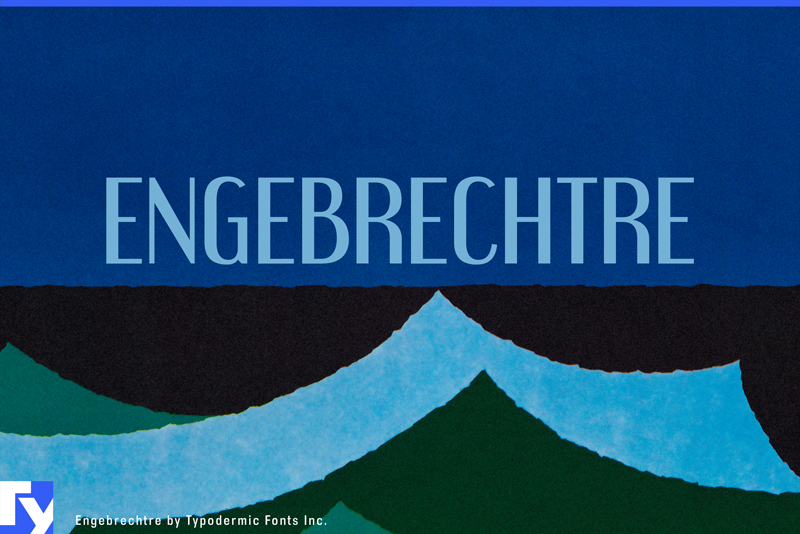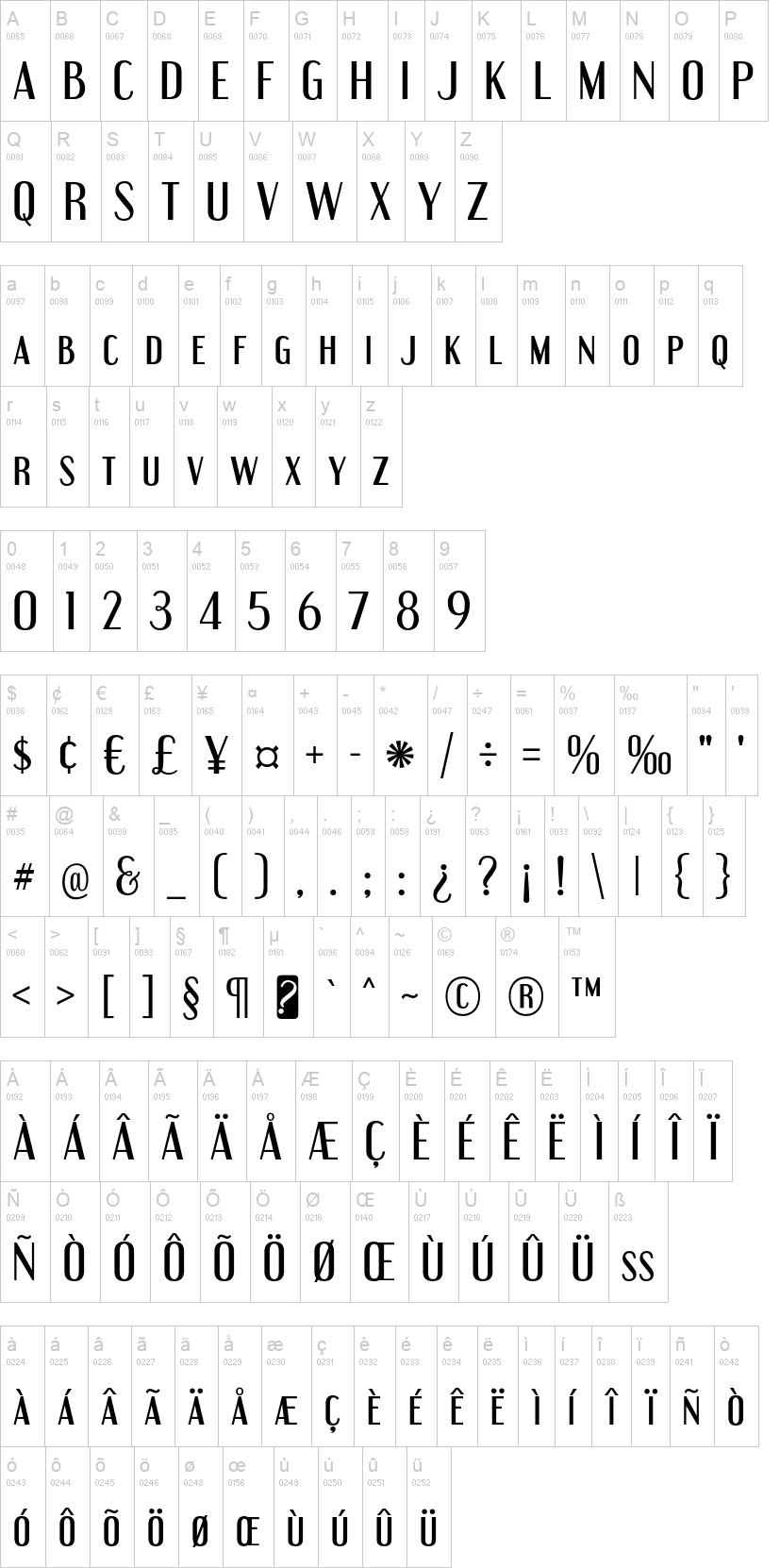
Engebrechtre Rg It.otfEngebrechtre Bd.otfEngebrechtre Bd It.otfEngebrechtre Ex.otfEngebrechtre Ex It.otfEngebrechtre Ex Bd.otfEngebrechtre Ex Bd It.otfNote of the authorEngebrechtre is a compact Art Deco sans-serif display typeface. Its flat sided shapes and 1920s letterforms give it a semi-industrial vibe, similar to vernacular signage of the time. Engebrechtre has two weights, two widths, and italics. Most Latin-based European writing systems are supported, including the following languages. Afaan Oromo, Afar, Afrikaans, Albanian, Alsatian, Aromanian, Aymara, Bashkir (Latin), Basque, Belarusian (Latin), Bemba, Bikol, Bosnian, Breton, Cape Verdean, Creole, Catalan, Cebuano, Chamorro, Chavacano, Chichewa, Crimean Tatar (Latin), Croatian, Czech, Danish, Dawan, Dholuo, Dutch, English, Estonian, Faroese, Fijian, Filipino, Finnish, French, Frisian, Friulian, Gagauz (Latin), Galician, Ganda, Genoese, German, Greenlandic, Guadeloupean Creole, Haitian Creole, Hawaiian, Hiligaynon, Hungarian, Icelandic, Ilocano, Indonesian, Irish, Italian, Jamaican, Kaqchikel, Karakalpak (Latin), Kashubian, Kikongo, Kinyarwanda, Kirundi, Kurdish (Latin), Latvian, Lithuanian, Lombard, Low Saxon, Luxembourgish, Maasai, Makhuwa, Malay, Maltese, Māori, Moldovan, Montenegrin, Ndebele, Neapolitan, Norwegian, Novial, Occitan, Ossetian (Latin), Papiamento, Piedmontese, Polish, Portuguese, Quechua, Rarotongan, Romanian, Romansh, Sami, Sango, Saramaccan, Sardinian, Scottish Gaelic, Serbian (Latin), Shona, Sicilian, Silesian, Slovak, Slovenian, Somali, Sorbian, Sotho, Spanish, Swahili, Swazi, Swedish, Tagalog, Tahitian, Tetum, Tongan, Tshiluba, Tsonga, Tswana, Tumbuka, Turkish, Turkmen (Latin), Tuvaluan, Uzbek (Latin), Venetian, Vepsian, Võro, Walloon, Waray-Waray, Wayuu, Welsh, Wolof, Xhosa, Yapese, Zapotec Zulu and Zuni.